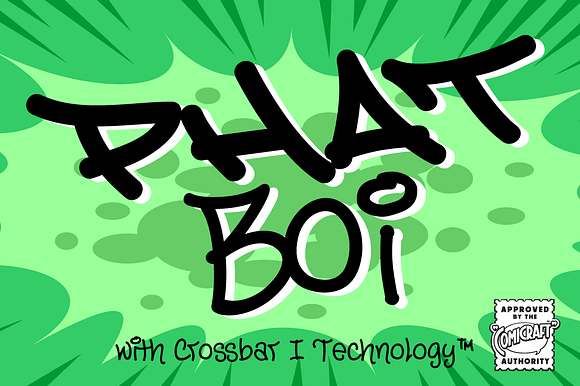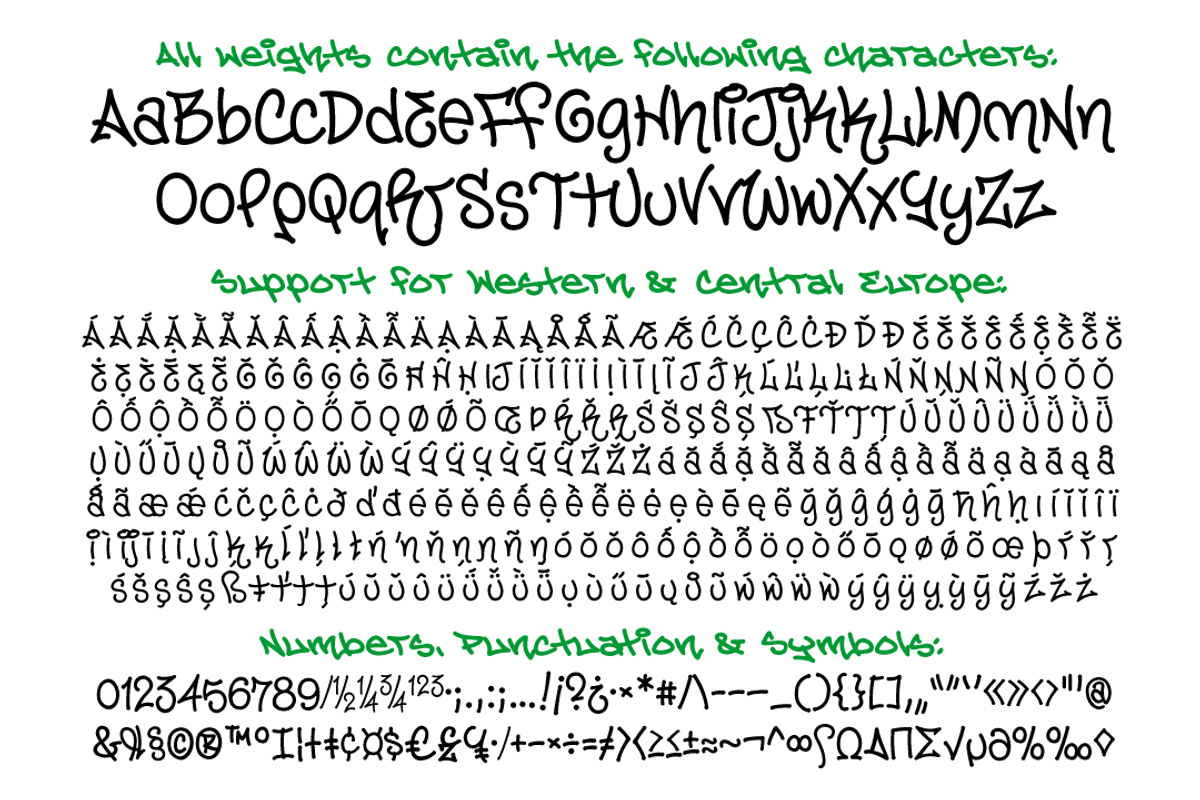
Phat Boi - street graffiti font
Word up! DJ Dongboi and triple threat "JG" Roshell has been bustin' out for all the young font gunnahs out there. He bein' crazy, givin' out the love and non-stop dope moves... You feel it? Be showin' ya respect and holla at the Phat Boi an' y'all be cool. Aiiiigggghhht?! Phatboi is Da Next Big Thang! Stay bent.